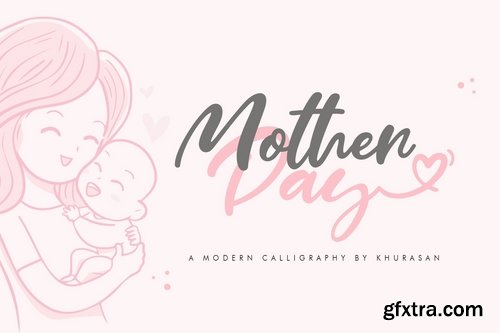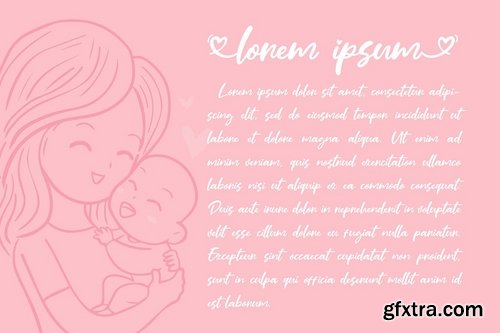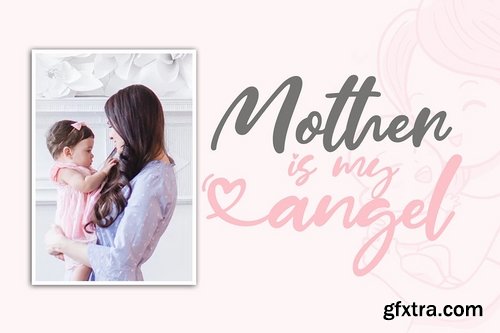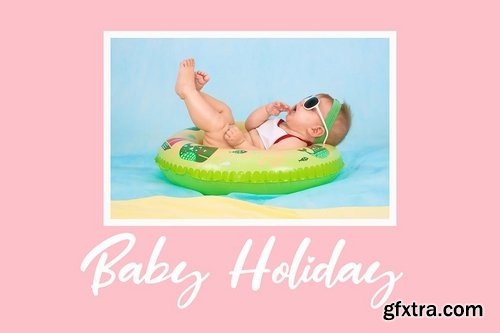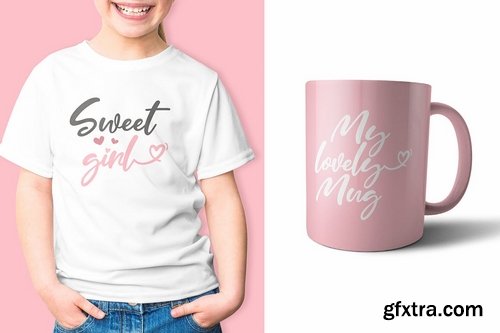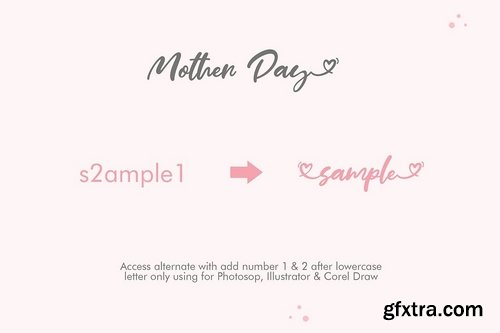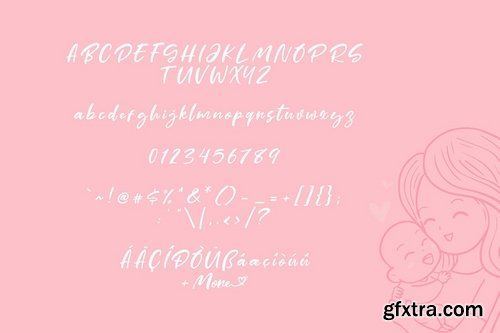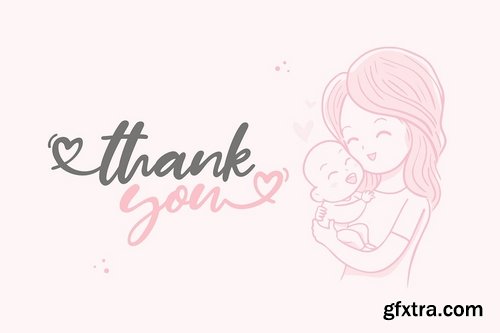
Introducing, Mother Day font a modern script typeface with cheerful theme for your fun project. Mother Day display font suitable for logo, branding, greeting card, poster and any design that you create.